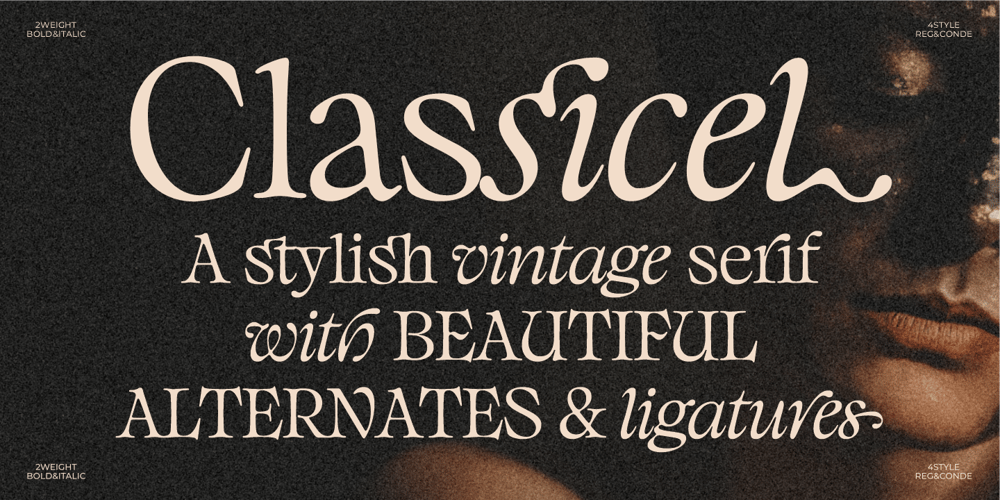
Classicel Serif Font Family was designed by Nurul Fajri Redy and published by Redy Studio. Classicel Serif contains 8 styles and family package options. Let’s explore the design of these Classical serif fonts & see what makes them special. A brand new Classic Typefaces with alternative characters, multilingual support and unique ligatures.These Classical serif fonts have an unbalanced character shape, with unequal ascender, descender, and x heights. This imbalance makes the font look Classic and elegant.Classical serif fonts can impress us with Classic Style by accessing alternative letters & unique ligatures in Opentype Features. You can showcase an elegant typography style by simply adjusting the spacing between the letters.Classical serif fonts is very versatile fonts. Perfect for branding projects, logos, magazine imagery, wedding invitations, posters, clothing, packaging, website headers, or simply as a stylish text overlays to any background image.FEATURES: Alternative Character Standard Ligatures Dlig Ligatures Stylistic Sets Multilingual Supports PUA Encoded Numerals and Punctuations If you have any questions, feel free to send me a message.